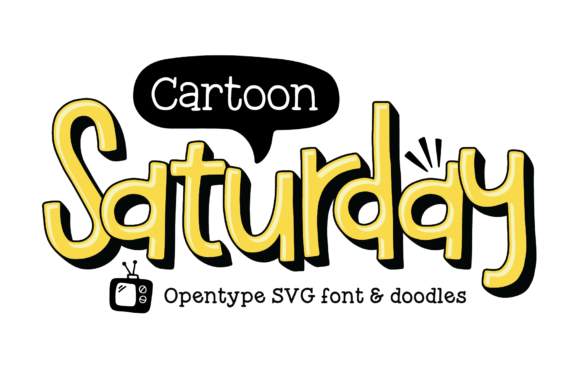
Introducing Cartoon Saturday Font, the perfect font for all your cartoon-inspired designs! Created by the talented Denise Chandler, this font is a true masterpiece that is sure to captivate your imagination.
Cartoon Saturday Font is not just your average font; it's a friendly and charming display font that will bring your designs to life. With its OpenType-SVG version in a vibrant yellow color, your text will instantly pop off the page. But that's not all – this font also offers filler and shadow versions, allowing you to layer them on top of each other for a truly unique and dynamic effect.
But what sets Cartoon Saturday Font apart from the rest? It's the little details that make all the difference. Denise Chandler has added a collection of delightful doodles to this font, giving you the freedom to create cute and playful designs effortlessly. From adorable animals to whimsical shapes, these doodles will add an extra touch of magic to your projects.
Imagine the possibilities with Cartoon Saturday Font. Whether you're designing a children's book cover, creating eye-catching posters, or even crafting personalized greeting cards, this font will bring a smile to everyone's face. Its versatility allows it to adapt to any project, making it the go-to choice for designers and creatives alike.
Not only does Cartoon Saturday Font ooze charm, but it also delivers when it comes to functionality. With its extensive character set, you'll have access to a wide range of letters, numbers, and symbols, ensuring that your typography game is on point. The font is easy to use and compatible with various design software, giving you the freedom to explore your creativity without limitations.
In summary, Cartoon Saturday Font is the font you've been dreaming of. From its friendly and charming demeanor to its vibrant colors and playful doodles, this font will elevate your designs to new heights. Don't settle for ordinary – choose Cartoon Saturday Font and let your creativity shine. Download now and embark on an unforgettable design journey!